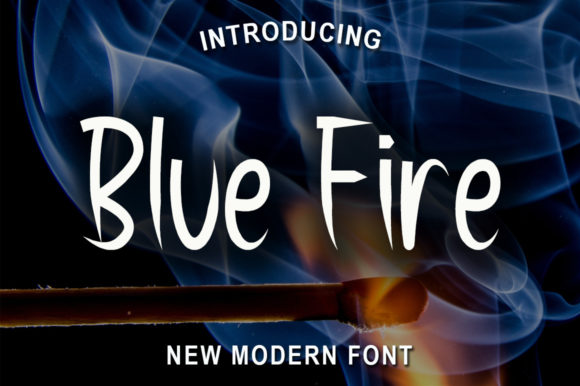
The Blue Fire Font: A Cool and Unique Display Font for Creatives
I’ll never forget the time I was working on a project for a client who needed a font that would make their brand stand out. I had spent hours browsing through font libraries, but nothing seemed quite right. That was until I stumbled upon the Blue Fire font. Its unique blend of modernity and playfulness instantly caught my eye, and I knew I had found the perfect fit. In this article, I’ll share my experience with the Blue Fire font, its features, and how to make the most of it in your designs.
An Honest Review of Blue Fire Font
What I Love About Blue Fire Font
• ✨ Unique and eye-catching design: Blue Fire font has a distinctive style that sets it apart from other fonts.
• ✅ Highly versatile: Whether you’re designing a logo, crafting a greeting card, or creating a presentation, Blue Fire font adapts seamlessly.
• 💻 Excellent for digital use: The font looks great on screens, making it perfect for social media graphics, website headers, and more.
• 🎨 Great for artistic projects: The font’s creative vibe makes it an excellent choice for artistic endeavors, such as illustrations, comics, or graphic novels.
While Blue Fire font is an excellent choice for many projects, there are a few things to keep in mind:
• 🤔 Legibility at small sizes: Like many display fonts, Blue Fire can become less legible at very small sizes. It’s best used at larger sizes (24px and above) for optimal impact.
• ⚠️ Limited use for body text: Due to its unique design, Blue Fire font is not suitable for long blocks of body text. It’s best used for headings, titles, or short phrases.
The Backstory of Blue Fire Font
Blue Fire font was designed by a team of creatives who wanted to create a font that would ignite imagination and inspire artistic expression. The design process involved experimenting with different shapes, lines, and curves to create a unique and captivating visual identity. The result is a font that is both modern and playful, perfect for creative projects that need a spark.
Q: What type of projects is Blue Fire font best suited for?
A: Blue Fire font is ideal for creative projects that require a unique and eye-catching font, such as logos, branding materials, presentations, greeting cards, and artistic endeavors.
Q: Is Blue Fire font available in different weights or styles?
A: Currently, Blue Fire font is available in a single weight, but it has a range of OpenType features, including glyphs and stylistic alternates, that can help you create variations and add visual interest.